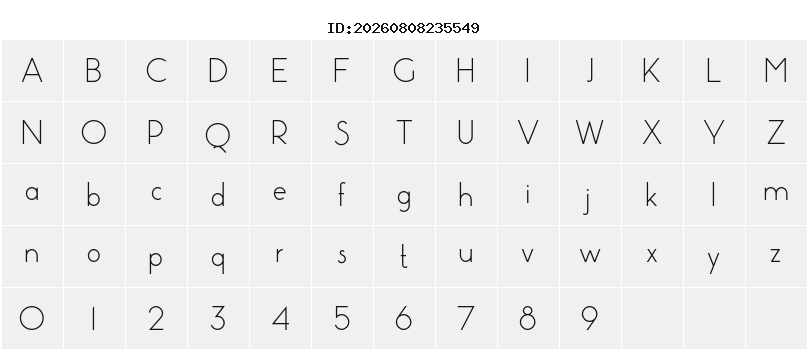
• Font Name: Pistara
• Designer: Paulo R
About Pistara.otf
Pistara.otf is a modern, elegant sans-serif font designed for ultimate readability and visual harmony. Perfect for branding, headlines, web design, and print materials.